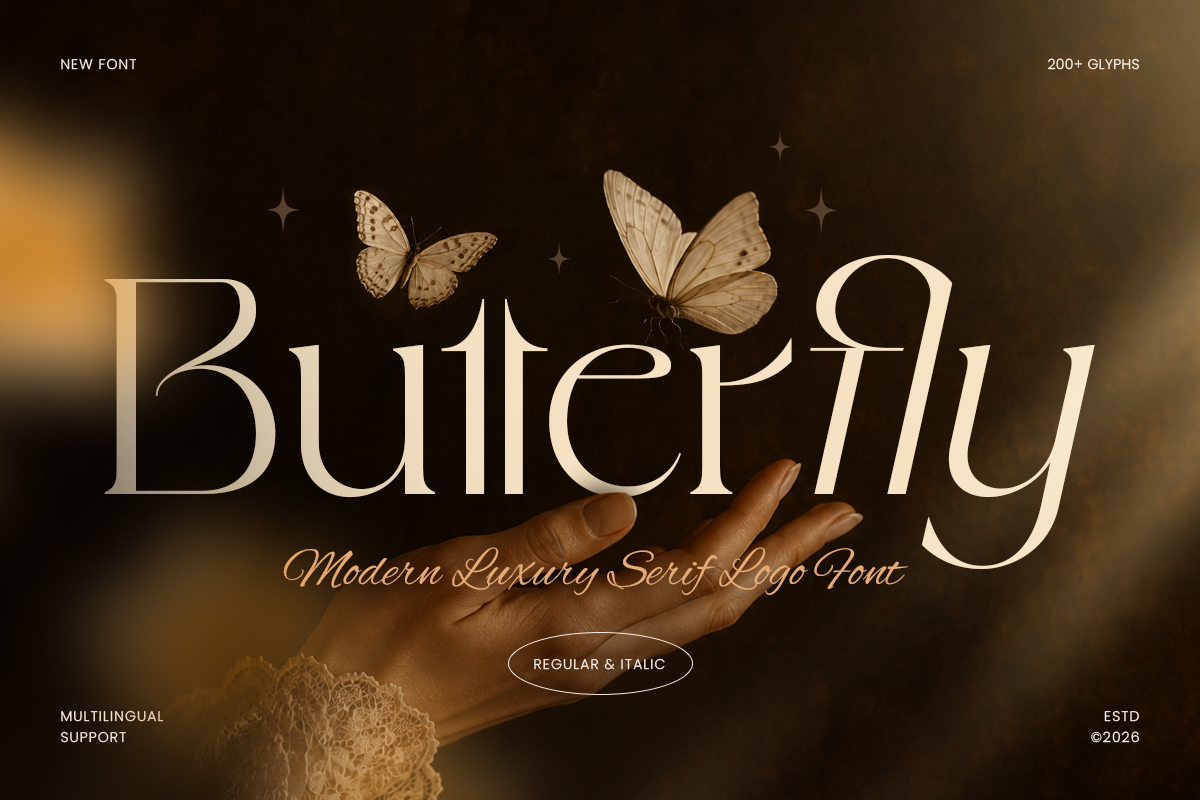
Butterfly
-Modern Luxury Serif Logo Font
BUTTERFLY – Modern Luxury Serif Logo Font
BUTTERFLY is a modern luxury serif logo font crafted with refined elegance, graceful proportions, and a sophisticated visual character. Combining contemporary details with timeless serif styling, this luxury serif font creates an exclusive and polished presence for premium design projects.
Perfect for luxury logos, brand identity, fashion labels, beauty products, perfume packaging, wedding stationery, editorial layouts, and upscale advertising, BUTTERFLY adds elegance to every composition. Its stylish letterforms work beautifully across packaging, posters, headlines, signage, social media, websites, and premium print materials.
Designed for creatives seeking a modern logo font with a luxurious personality, BUTTERFLY balances distinctive character with versatile usability. From boutique branding and cosmetics to magazines and sophisticated lifestyle brands, it helps create memorable identities with a graceful high-end aesthetic.
BUTTERFLY – Modern Luxury Serif Features
• Elegant modern serif letterforms with a luxury aesthetic
• Refined character shapes for sophisticated visual identities
• Ideal for logos, branding, fashion, beauty, and editorial design
• Perfect for premium packaging, posters, headlines, and signage
• OpenType features for creative typographic flexibility
• Suitable for both digital and print projects
• Works beautifully for social media and advertising designs
Elevate your visual identity with BUTTERFLY – a sophisticated luxury serif crafted for timeless branding. ✨